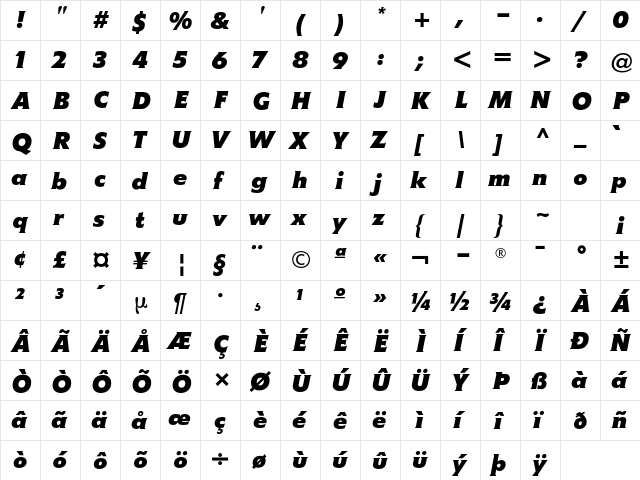
Memo Std Bold Italic Font Preview
Design Context for Memo Std Typeface
Memo Std takes a measured approach to typography — its balanced proportions and neutral character make it a reliable workhorse for both digital and print work. The slanted form adds forward momentum and visual energy. The heavy weight commands attention and anchors typographic hierarchies.
Pro Tip: Try Memo Std for annotation and caption copy alongside an upright companion — the contrast in angle creates a dynamic but ordered typographic system.